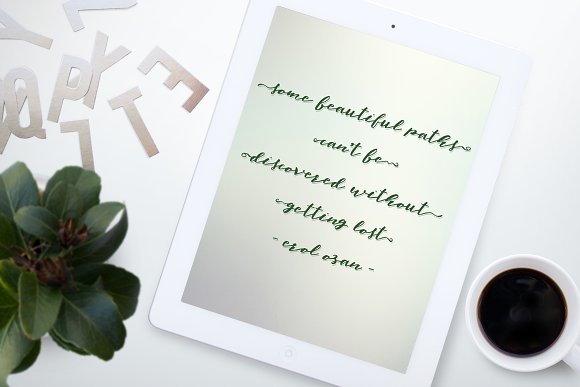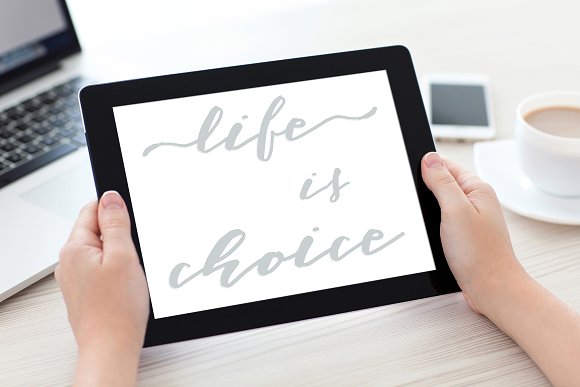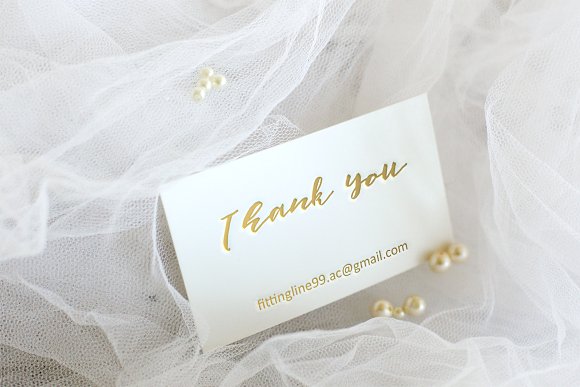
Elfa Brush Font
Introducing Elfa Brush Font! Elfa Brush designed by Fittingline Type Supply, this is a premium font, are sold on creativemarket, but it was great, it is free today for download. Elfa Brush is the handmade font style dancing and then live trace to have Grungy brush and unique forms of calligraphy, the writing style is very natural and simple. This font come with 411 glyph and will be an update to the next depending on your needs …